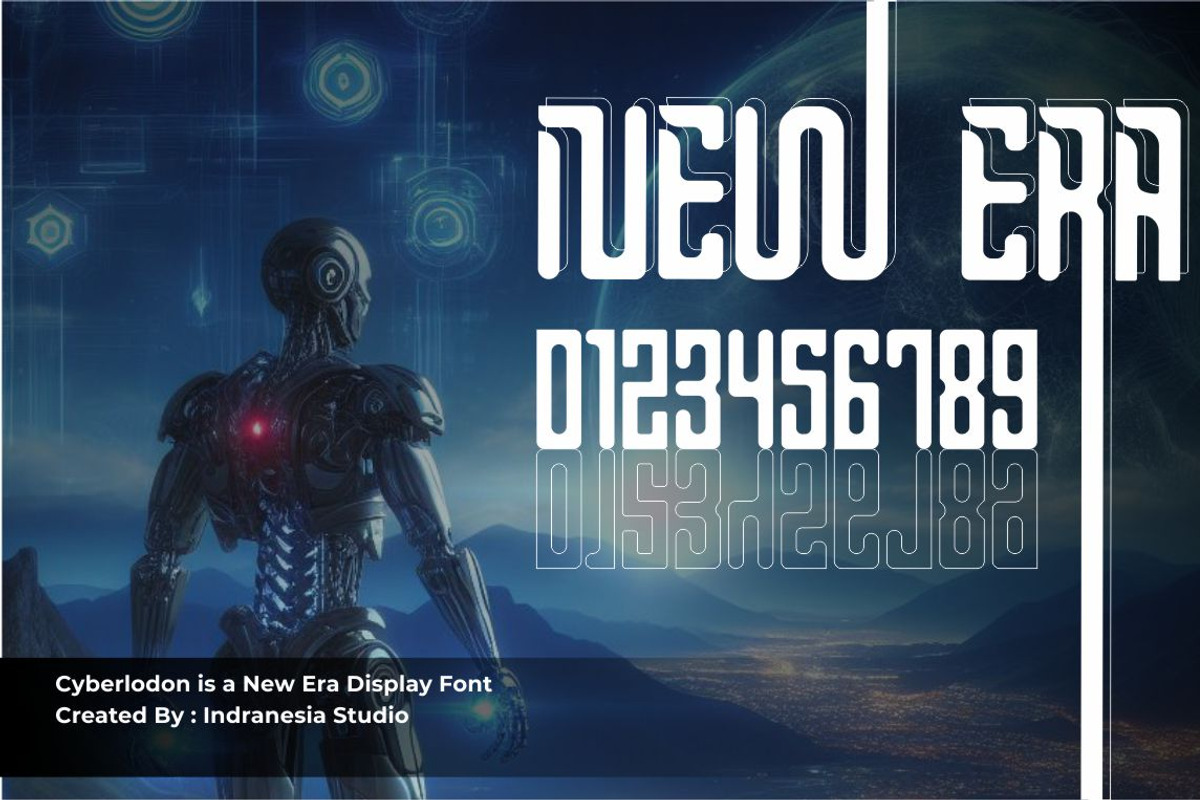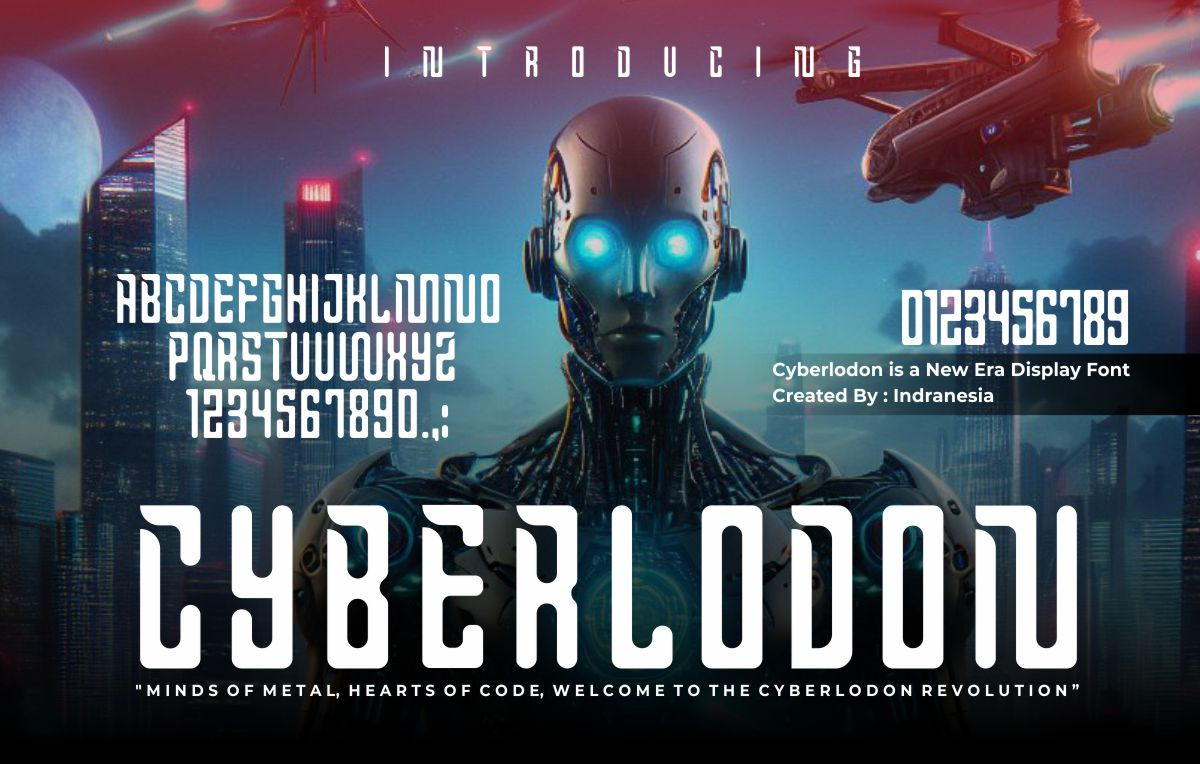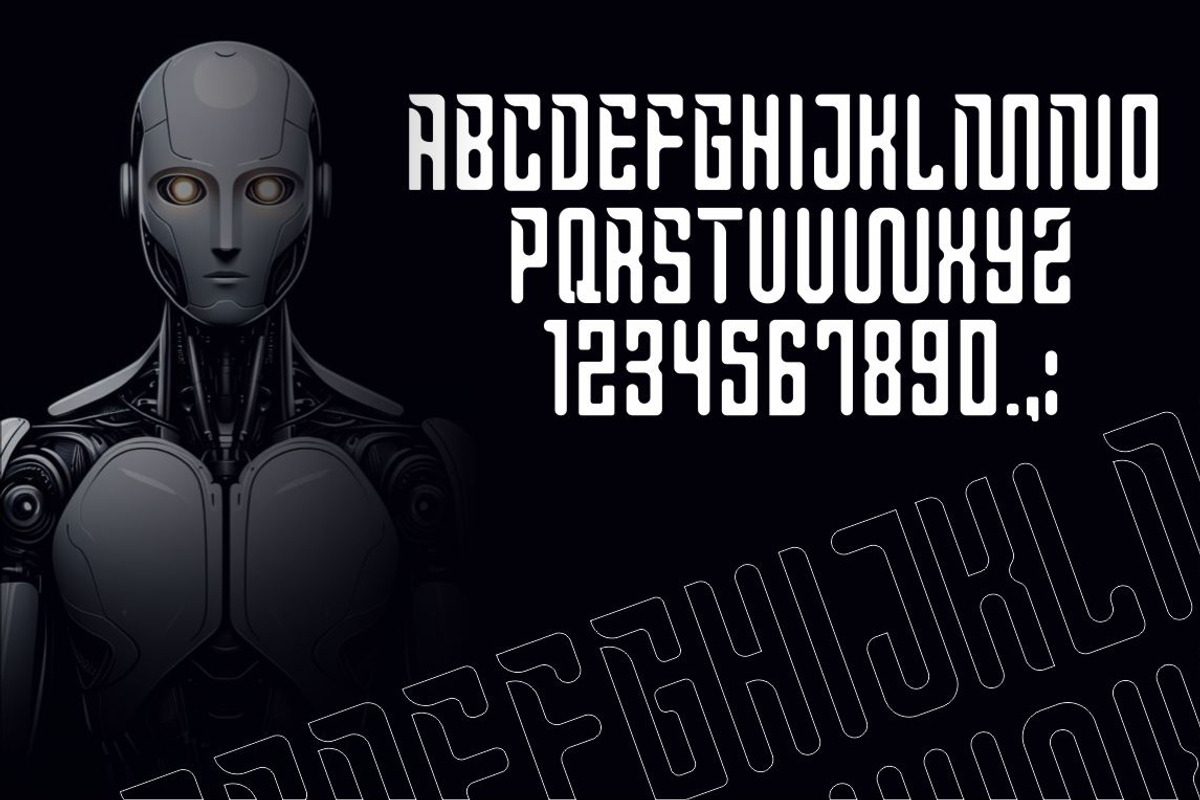
Cyberlodon - New Era Display Font
CyberLodon, a cutting-edge font technology that propels typography into the future. Designed for the digital age, CyberLodon seamlessly blends sleek aesthetics with a cybernetic essence, embodying the spirit of innovation and technological advancement. It featured to help you to uses for movie title, flyer title, gigs or album cover, labeling, logo, clothing, magazines.
- Display Font
- Capital and Number Only